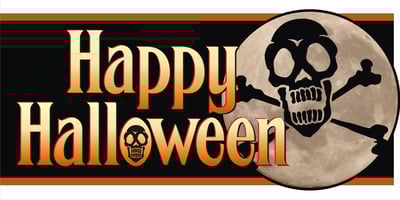
ToxIcons Font Family was designed by James L. Stirling and published by Fontry West. ToxIcons contains 8 styles and family package options. You want to say TOXIC, POISON, DANGER, YOU GONNA DIE SUCKA? Use a ToxIcon. ToxIcons come in a variety of delightfully deathly classic poison flavors: realistic, mechanical, futuristic, comical, and demonic. Just about anybody will find their poison with ToxIcons, but just for spice these fonts include biohazard, radiation and even cow skull symbols. Let folks know that you mean business – use a ToxIcon. ToxIcons includes: ToxIcons Regular – Line art versions of 94 odd toxic icons. ToxIcons Reverse – Reverse versions of same the toxic icons. ToxIcons Remains – All of the stuff I didn’t have room for in the first two versions. ToxIcons No Bonz – Line art and reverse skulls only.